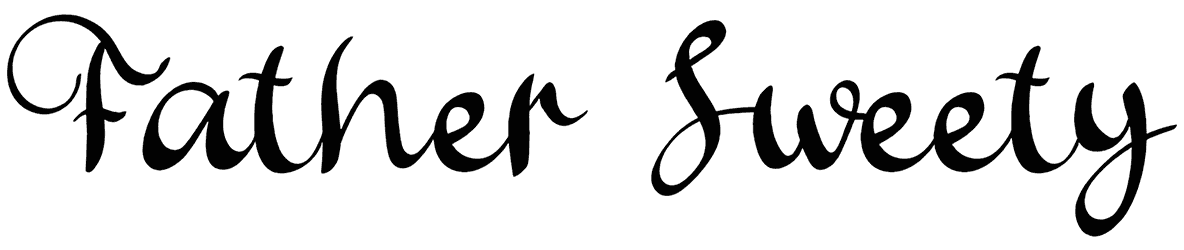
Father Sweety Font
Making the most of script fonts like Father Sweety can create incredible impacts for you. Just bring it into contact with it in your logotypes, business cards, apparel products, invitations, and many printed projects.